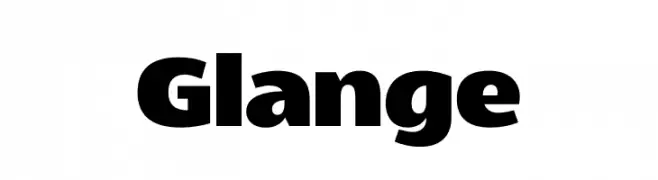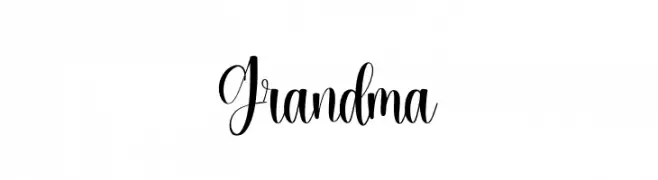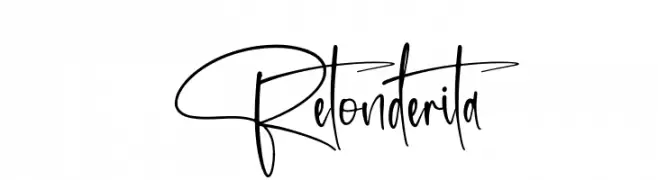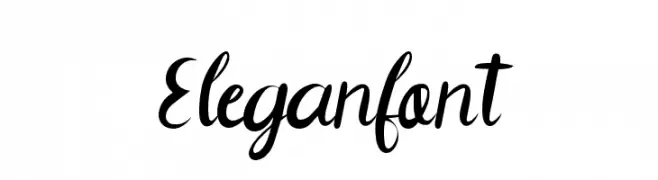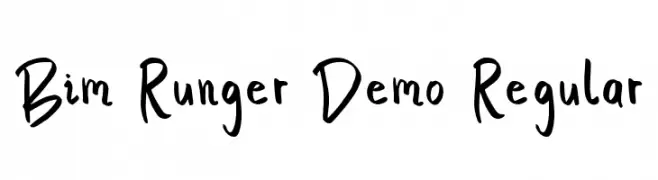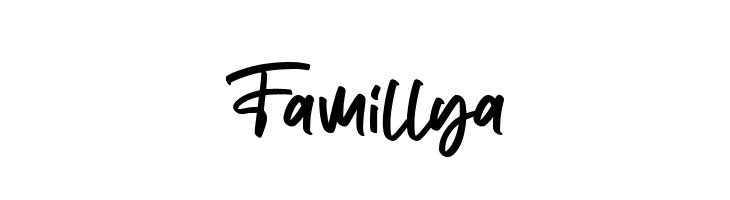
A bold, modern font with strong, uniform characters ideal for impactful headlines.
An elegant and flowing script font with graceful curves and a sophisticated style.
A lively and expressive handwritten font with fluid, dynamic strokes.
A cursive, elegant font with a flowing, handwritten style.
A playful, informal handwritten font with dynamic strokes and a lively appearance.
A playful, hand-drawn font with bold, rounded strokes and a casual vibe.